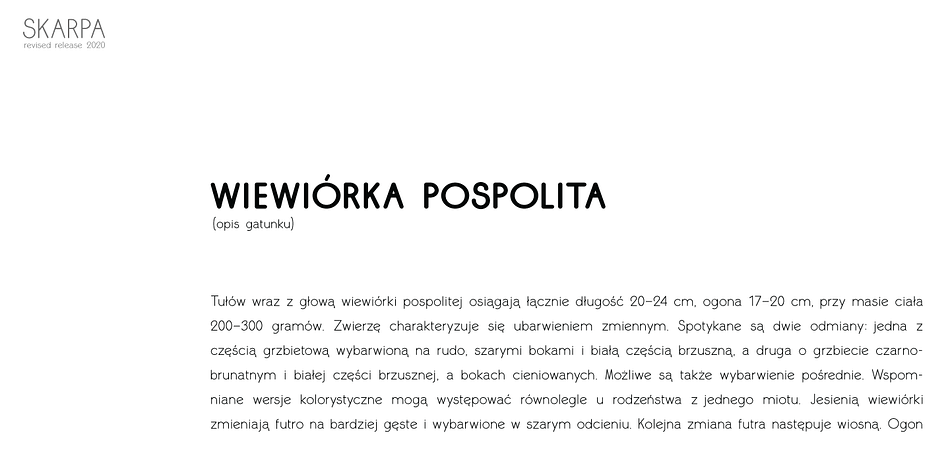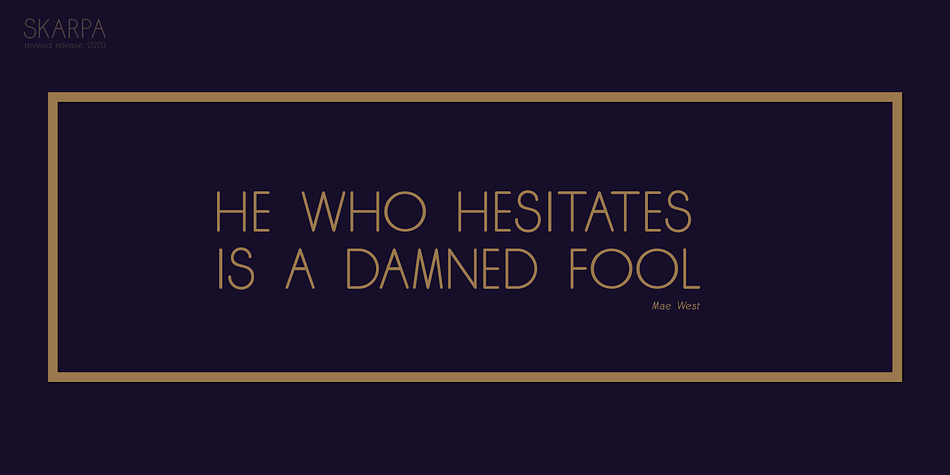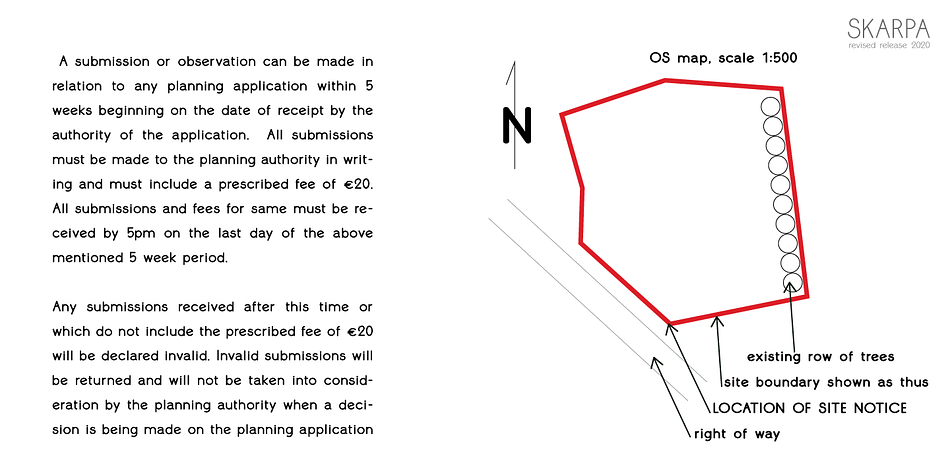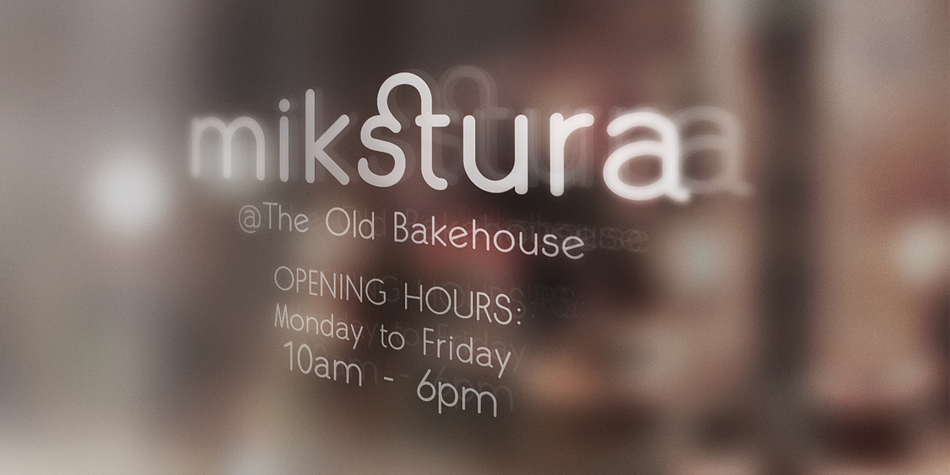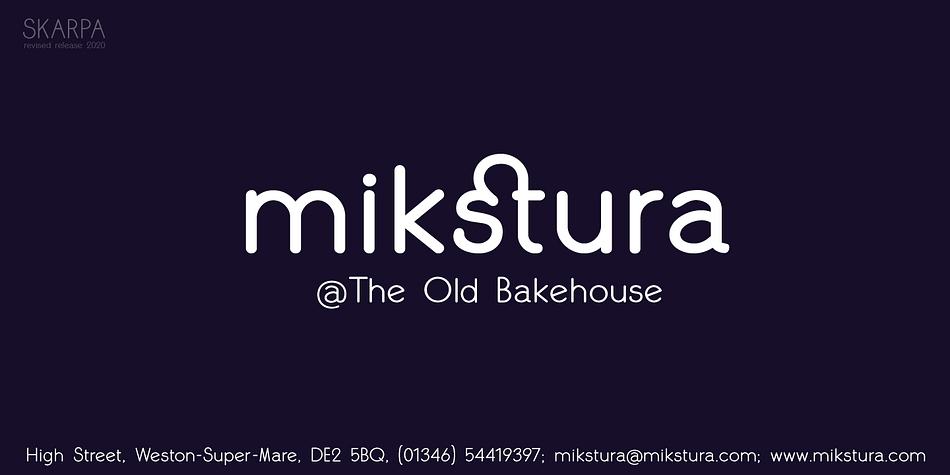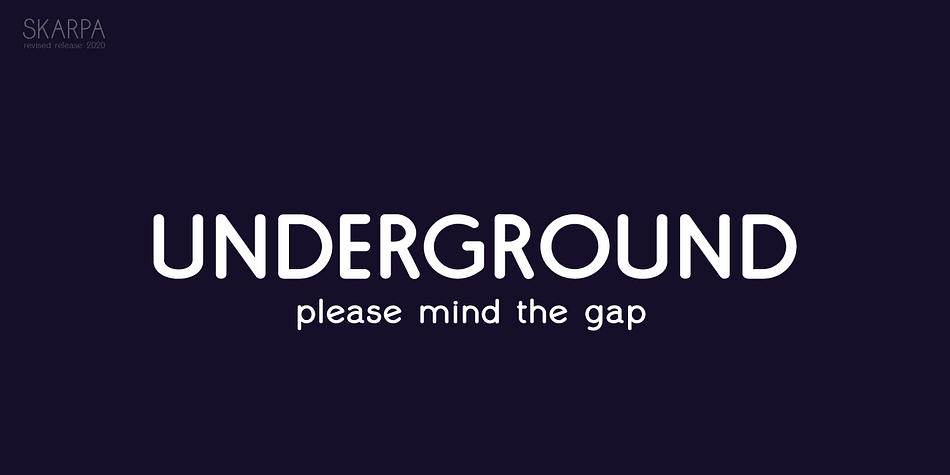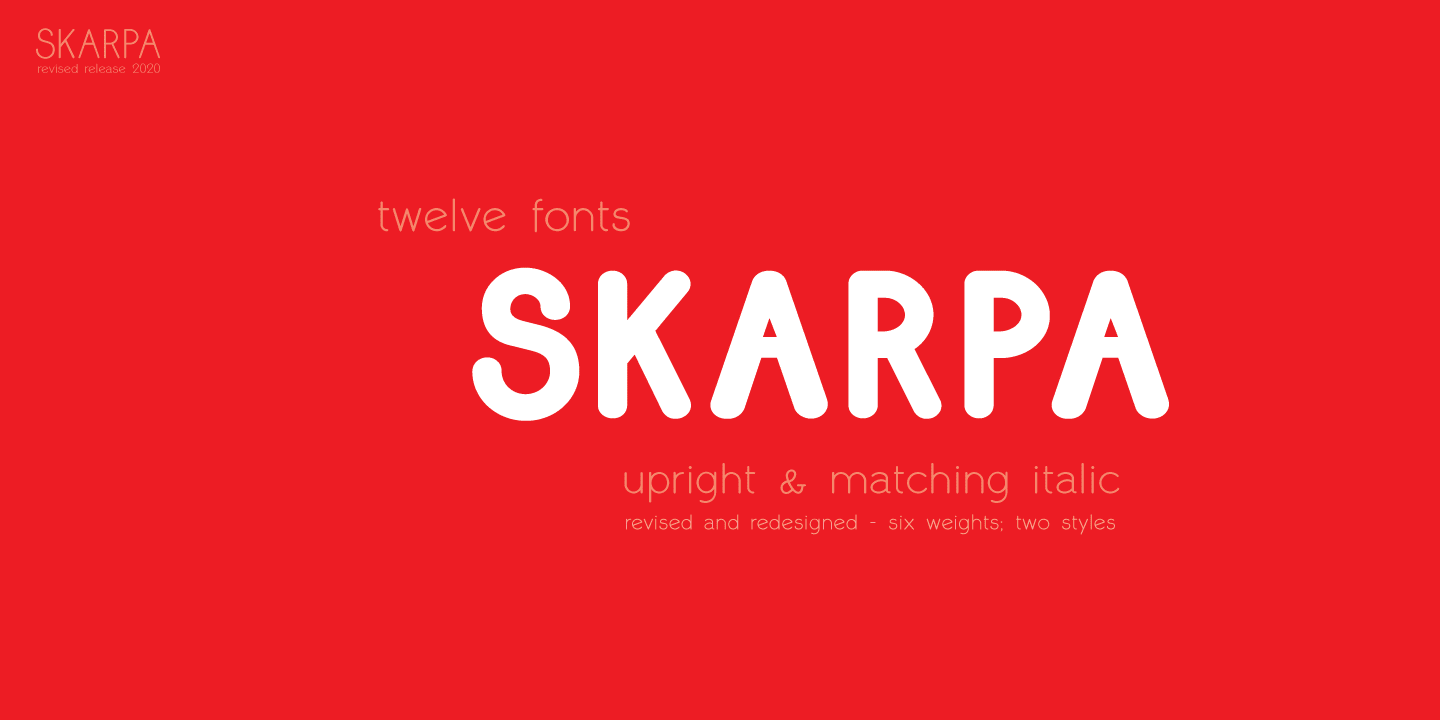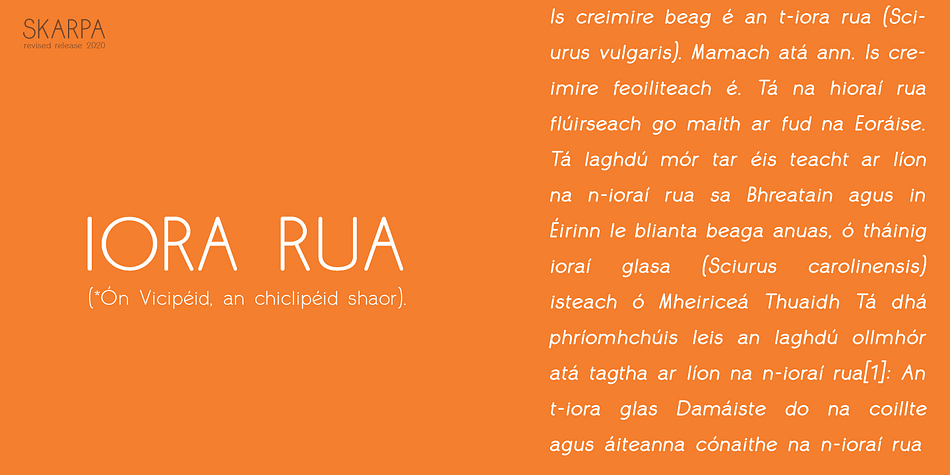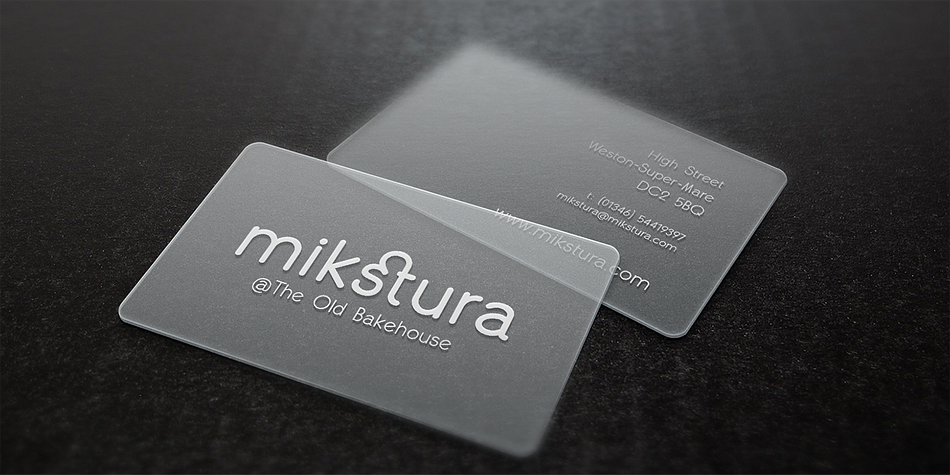
Designed by Aga Silva, Skarpa is an art deco, display sans and sans serif font family. This typeface has fourteen styles and was published by Aga Silva Fonts.
This is long awaited thorough revision to Skarpa family. The revision has inculded both another look at letter shapes as well as kerning and metrics of the files.
The shapes encapsulated in this font stem from old time architectural drawings hand executed at drawing board with tracing paper and rapidographs. Think of lettering stencils sliding across the tracing paper and craftily exectuted drawing descriptions.
The font is based on geometric forms devoid of excessive flourishing.
Would suit modern designs either in fashion, technology or laboratory setting. Would look good on door plaques in pharmacy or simple drawer plaques - especially Medium or Bold specimen.